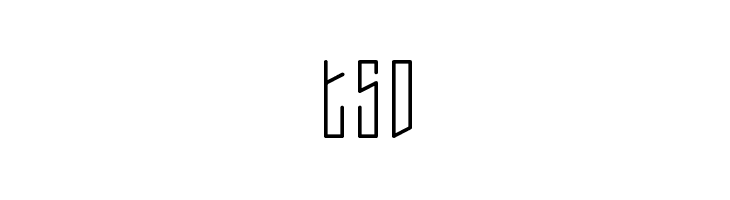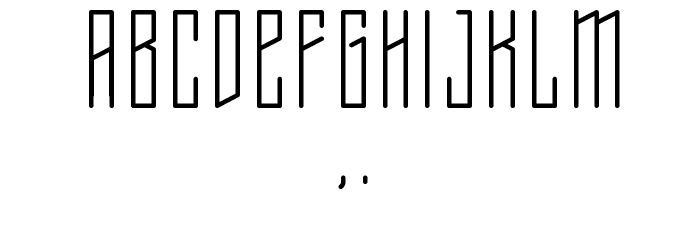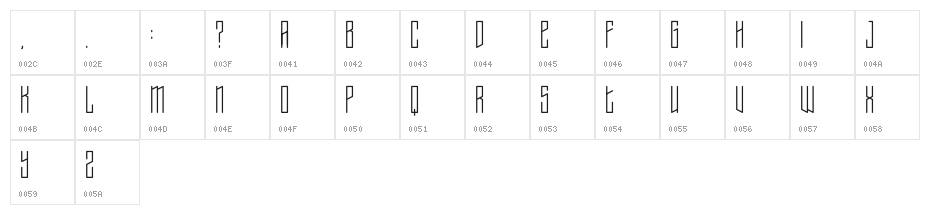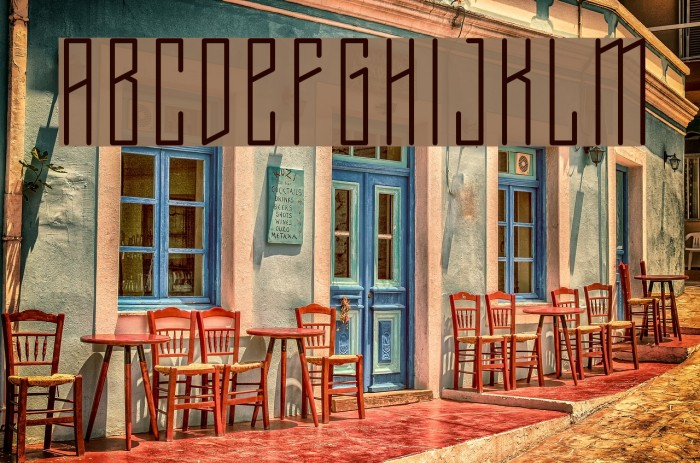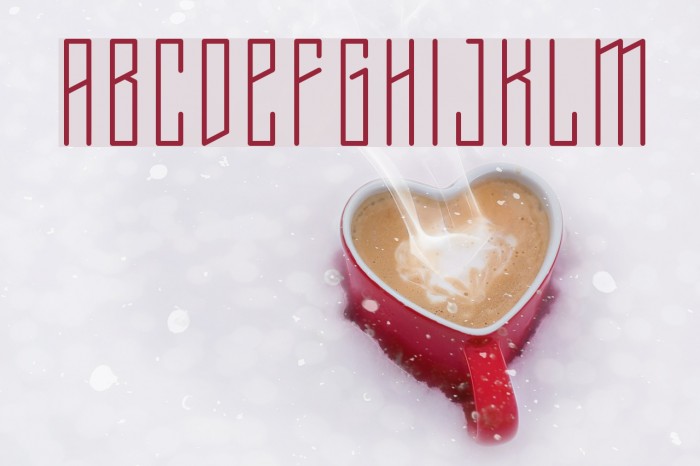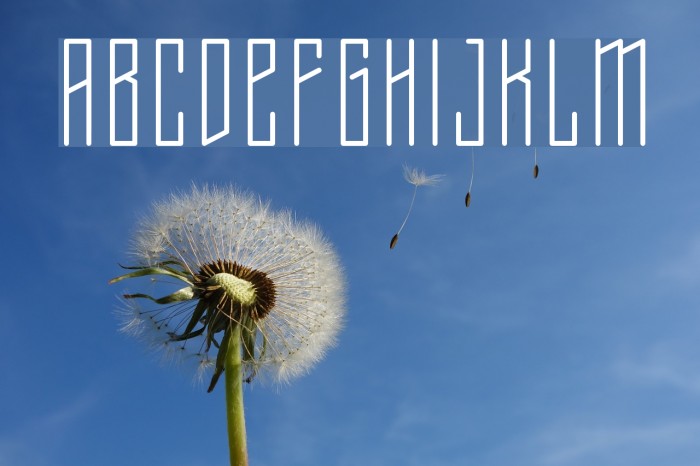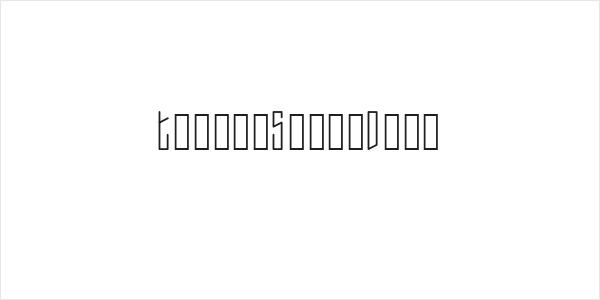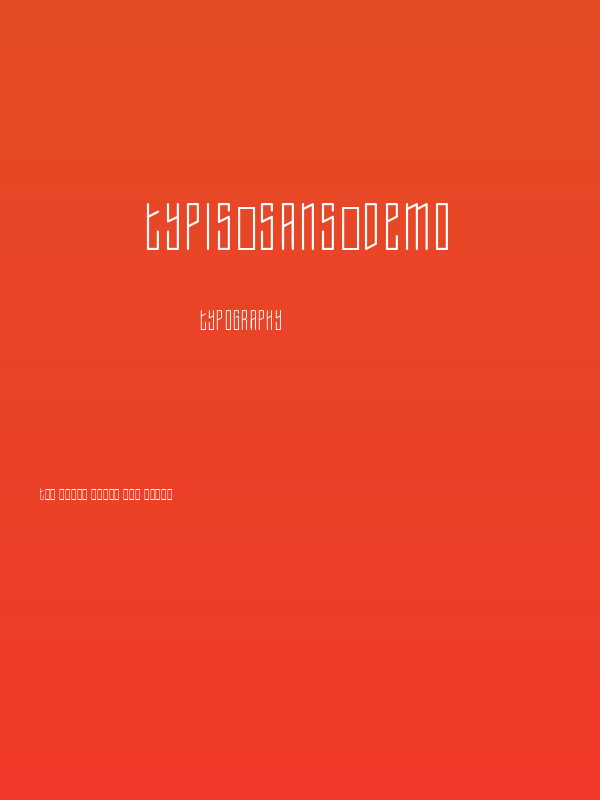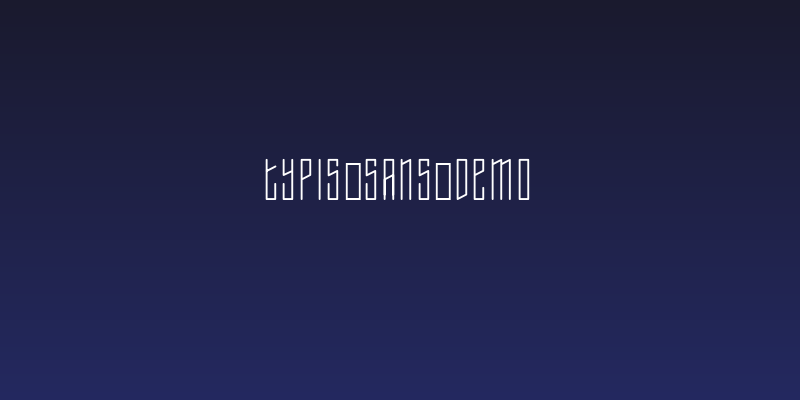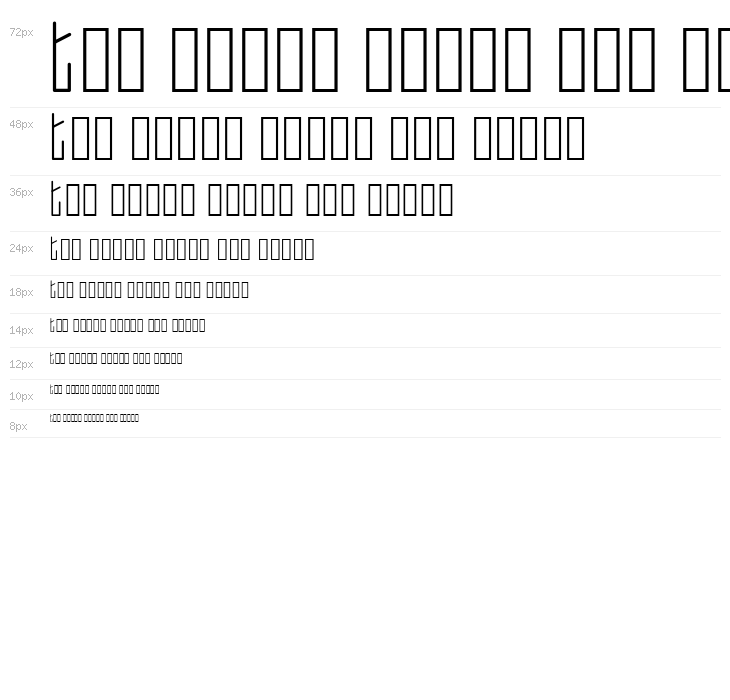
Typis-Sans-Demo Font
Typis-Sans-Demo Description
This font features a unique and modern design with a geometric and elongated structure. The characters are tall and narrow, giving a distinct and stylish appearance. The lines are clean and straight, with sharp angles that create a futuristic and minimalistic look. The uppercase and lowercase letters maintain a consistent height, emphasizing the uniformity and sleekness of the design. The numbers and special characters follow the same aesthetic, ensuring a cohesive visual experience. This font is ideal for projects that require a contemporary and edgy feel.